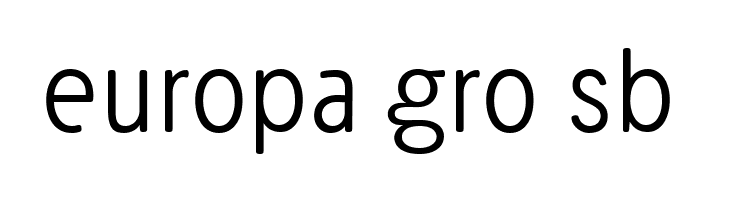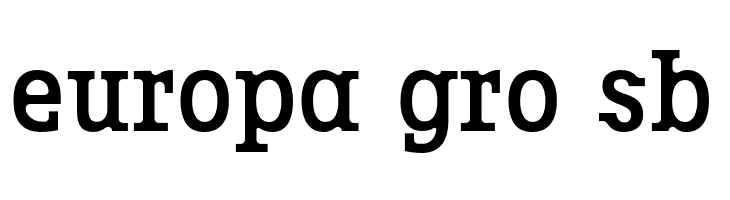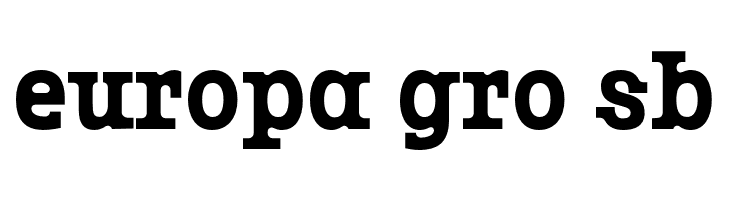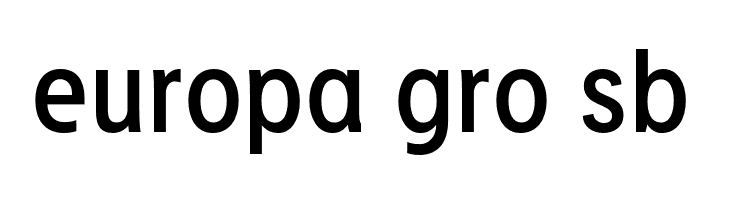
A modern, rounded typeface with excellent readability and a friendly appearance.
A modern, rounded typeface with a friendly and approachable design.
A modern, rounded italic font with a smooth and clean appearance.
A rounded, italic font with a modern and approachable style.
A modern, rounded typeface with uniform strokes and excellent readability.
A modern, rounded font with clean lines and even spacing.
A modern, rounded, extra light italic typeface with a friendly and elegant style.
A modern, rounded, extra light italic font with a friendly and elegant style.
A modern, rounded font with a clean and approachable design.
A modern, rounded, light italic font with smooth curves and clean lines.
A modern, rounded, light italic font with a sleek and approachable design.
A modern, rounded typeface with smooth curves and a friendly appearance.
A modern, rounded font with smooth curves and a friendly appearance.
A rounded, medium-weight italic font with a friendly and modern style.
A rounded, medium-weight italic font with a friendly and modern appearance.
A modern, thin, rounded font with a clean and minimalist design.
A modern, rounded, and thin sans-serif font with a clean and elegant design.
A sleek, modern, rounded, thin italic font with a refined aesthetic.
A modern, rounded, thin italic font with a sleek and elegant design.
A bold, robust slab serif font with strong, block-like serifs.
A bold, slab serif font with strong, thick strokes and a classic yet modern appeal.
A classic serif font with elegant, well-defined characters and slight stroke contrast.
A modern, clean sans-serif font with balanced proportions and excellent readability.
A modern, italic font with clean lines and consistent stroke width.
A modern sans-serif italic font with clean lines and a dynamic style.
A clean, modern sans-serif font with a light weight and excellent readability.
A modern, light, italic sans-serif font with clean lines and low contrast.
A sleek, modern, light italic font with balanced character spacing.
A clean, modern typeface with uniform stroke width and excellent readability.
A bold, modern sans-serif font with clean lines and a strong presence.
A bold, modern font with thick, uniform strokes for strong visual impact.
A bold, modern typeface with strong, uniform letterforms.
A bold, italicized typeface with a modern and dynamic style.